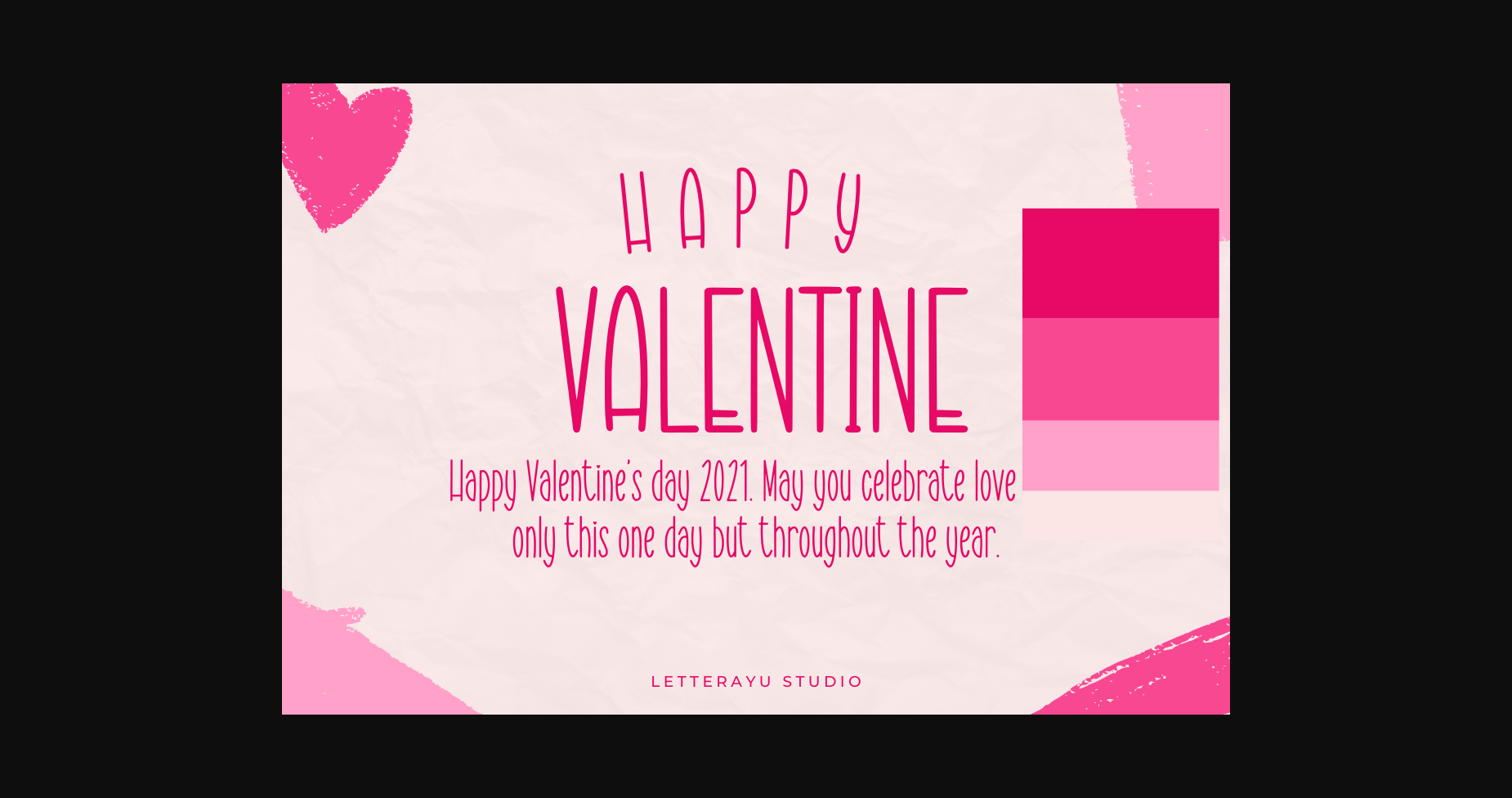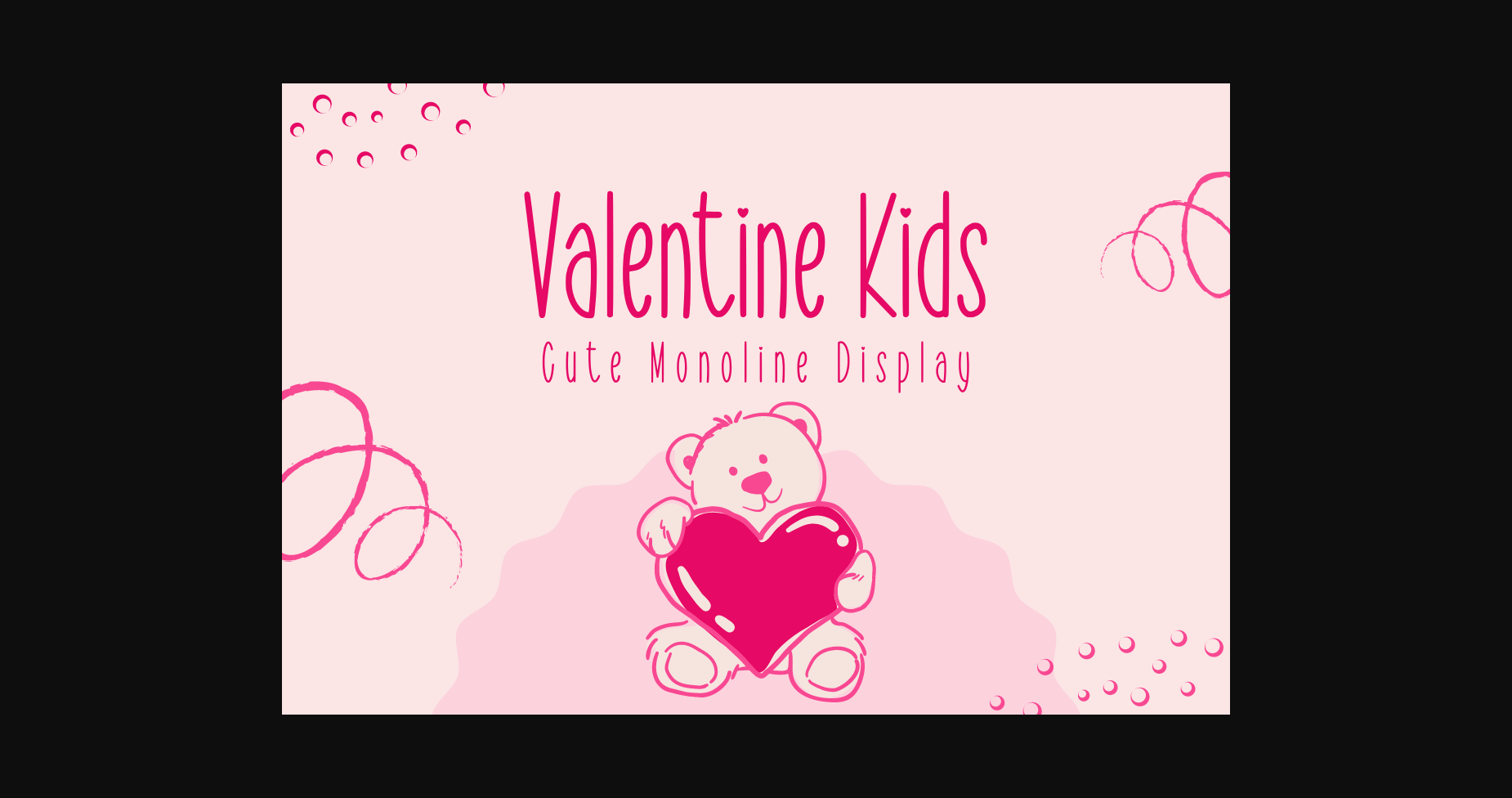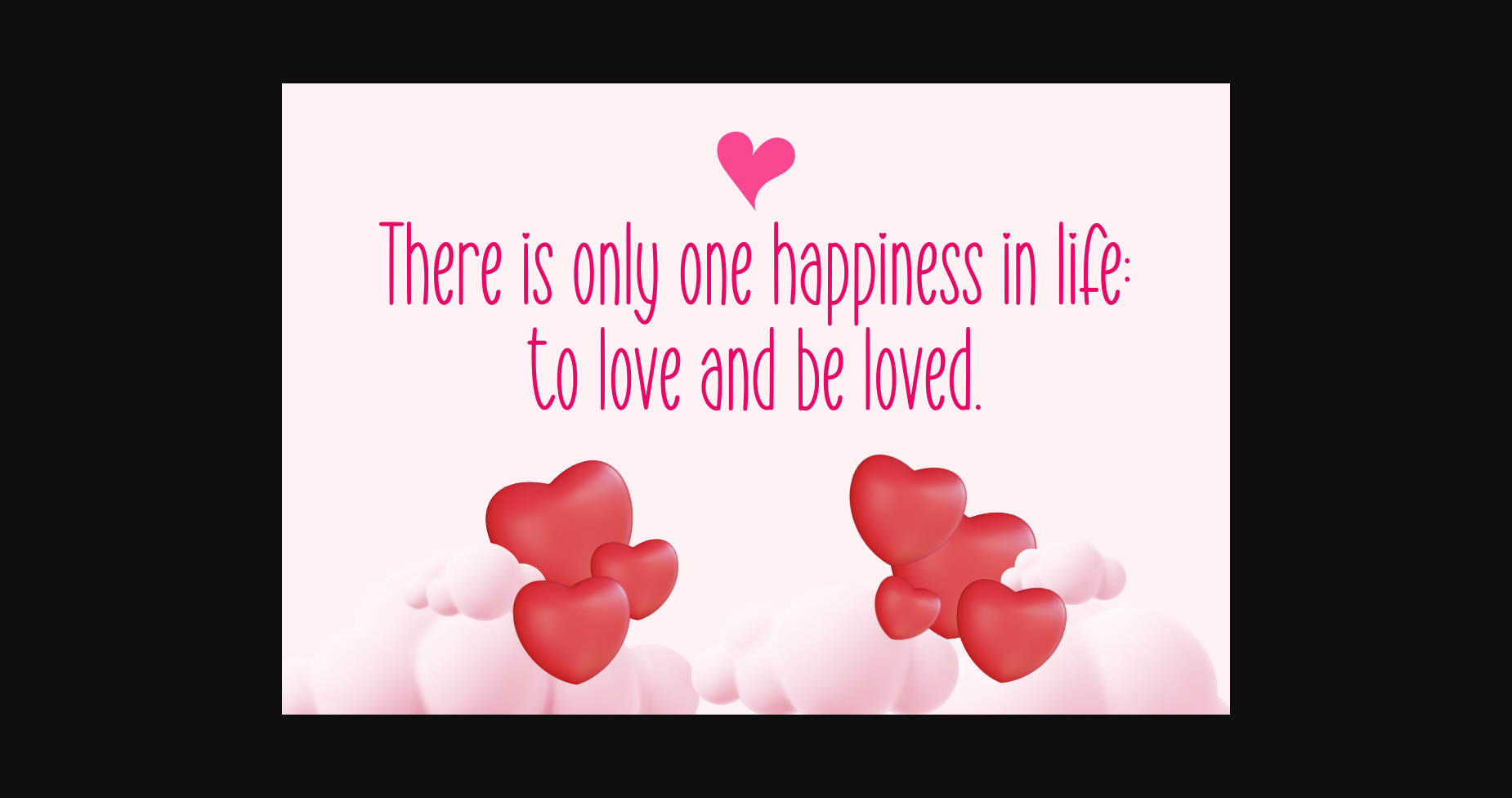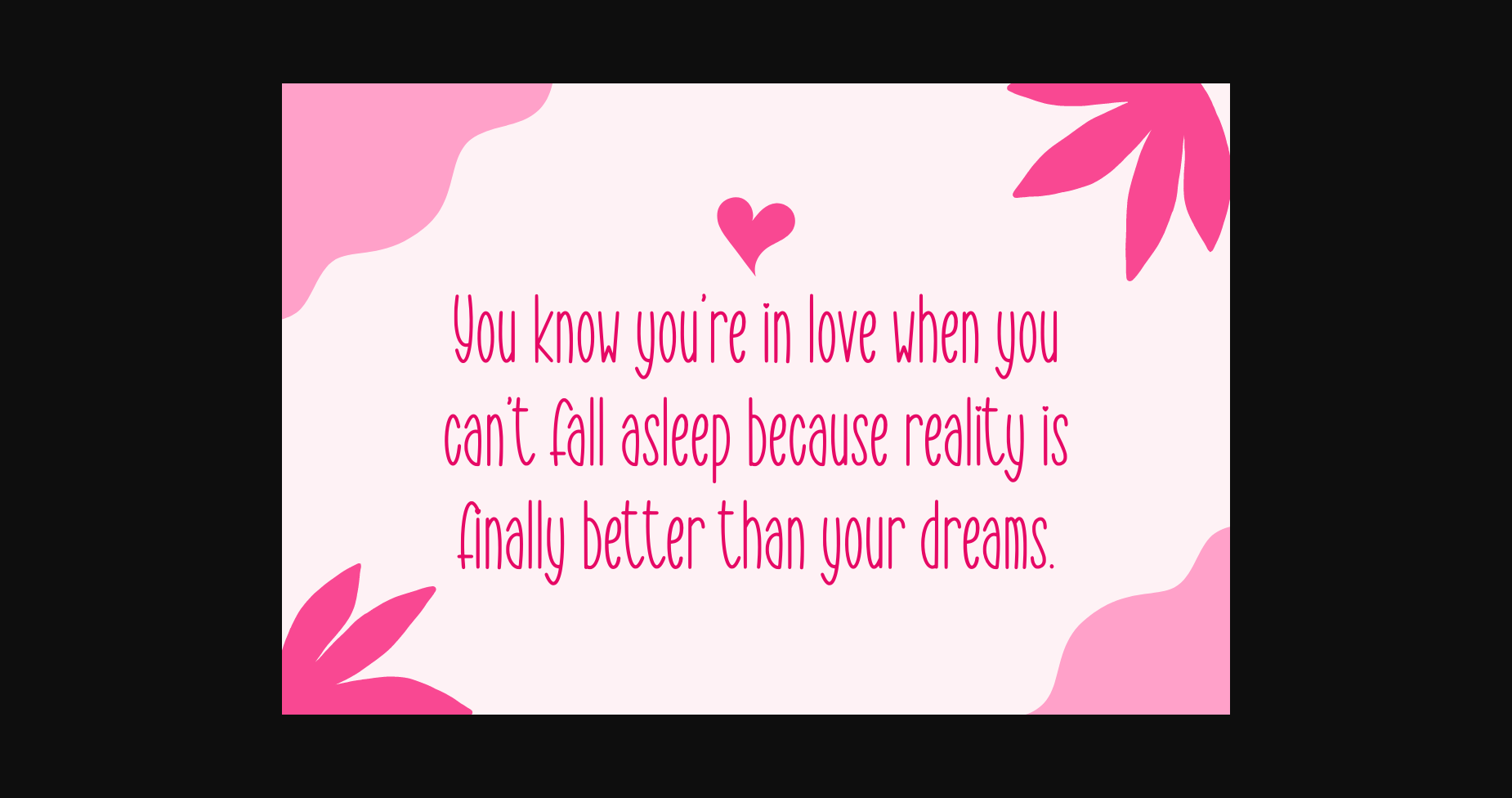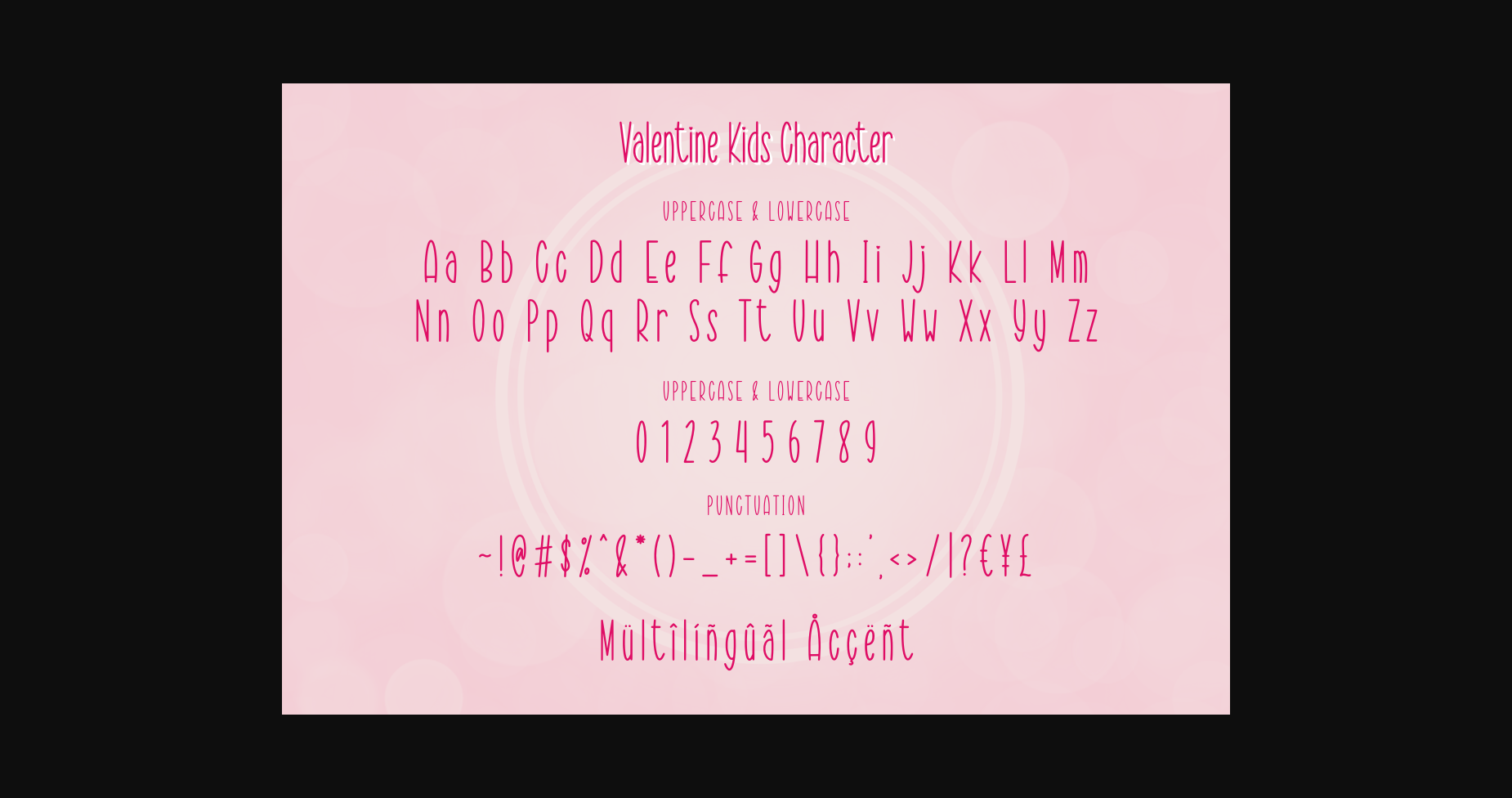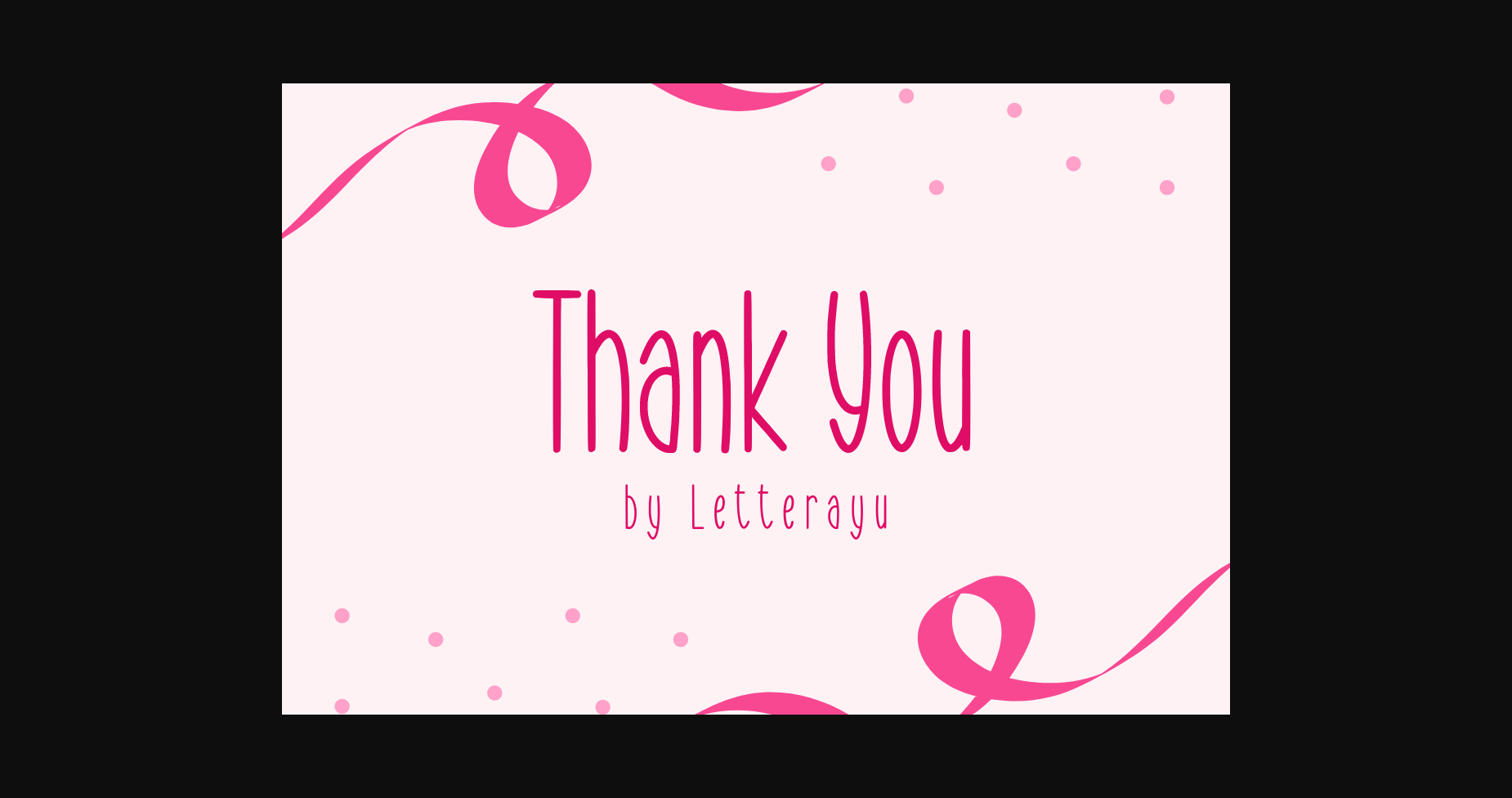
About Valentine Kids Font
Valentine Kids is a sweet, tall and thin lettered sans serif font. It works great for children or school projects, or pretty much anything that requires a chic, delicate touch.